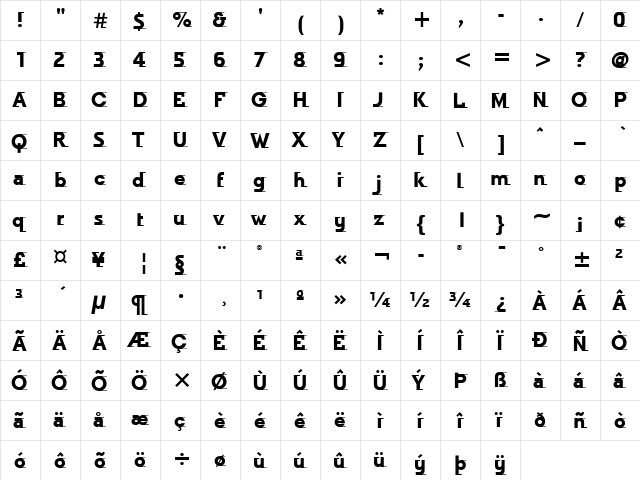
Odyssee ITC Bold Font Preview
Odyssee ITC Bold
Odyssee ITC Bold Font Details
Design Context for Odyssee ITC Typeface
Odyssee ITC is a composed and adaptable typeface that performs quietly and consistently across a wide range of design contexts. Its bold stroke weight gives it real presence on the page.